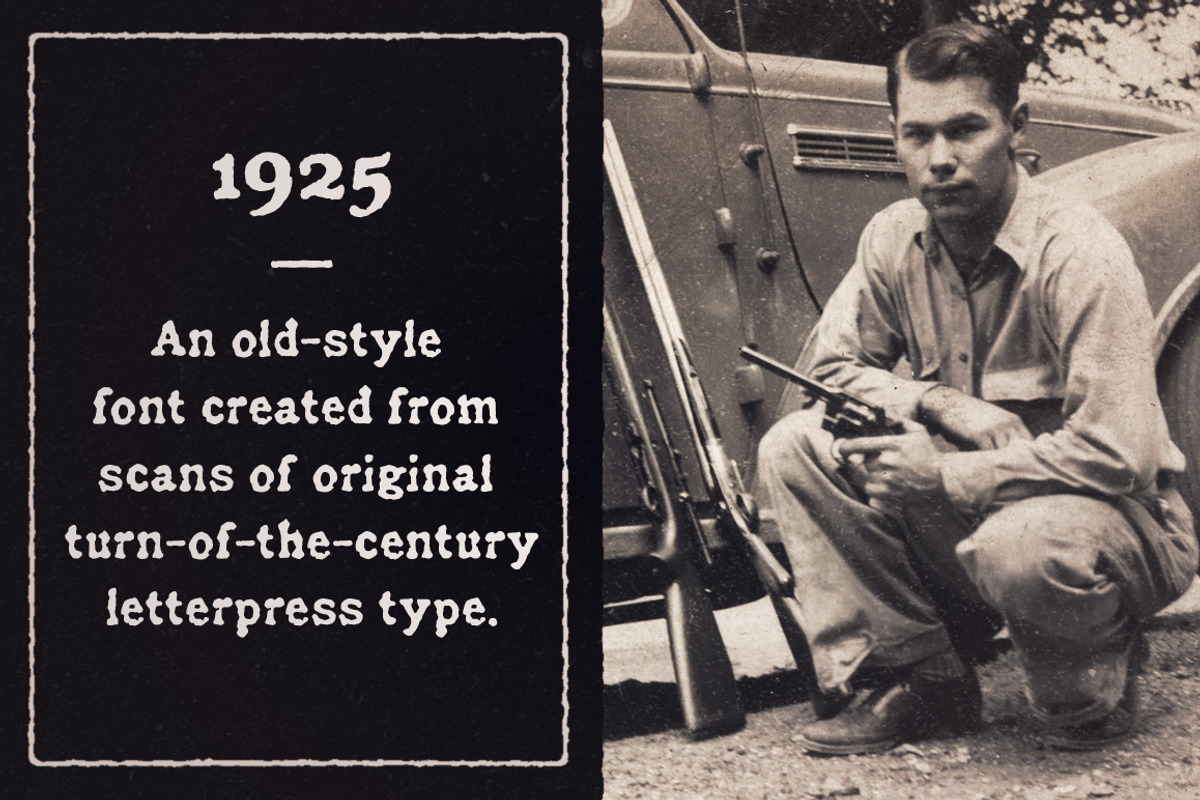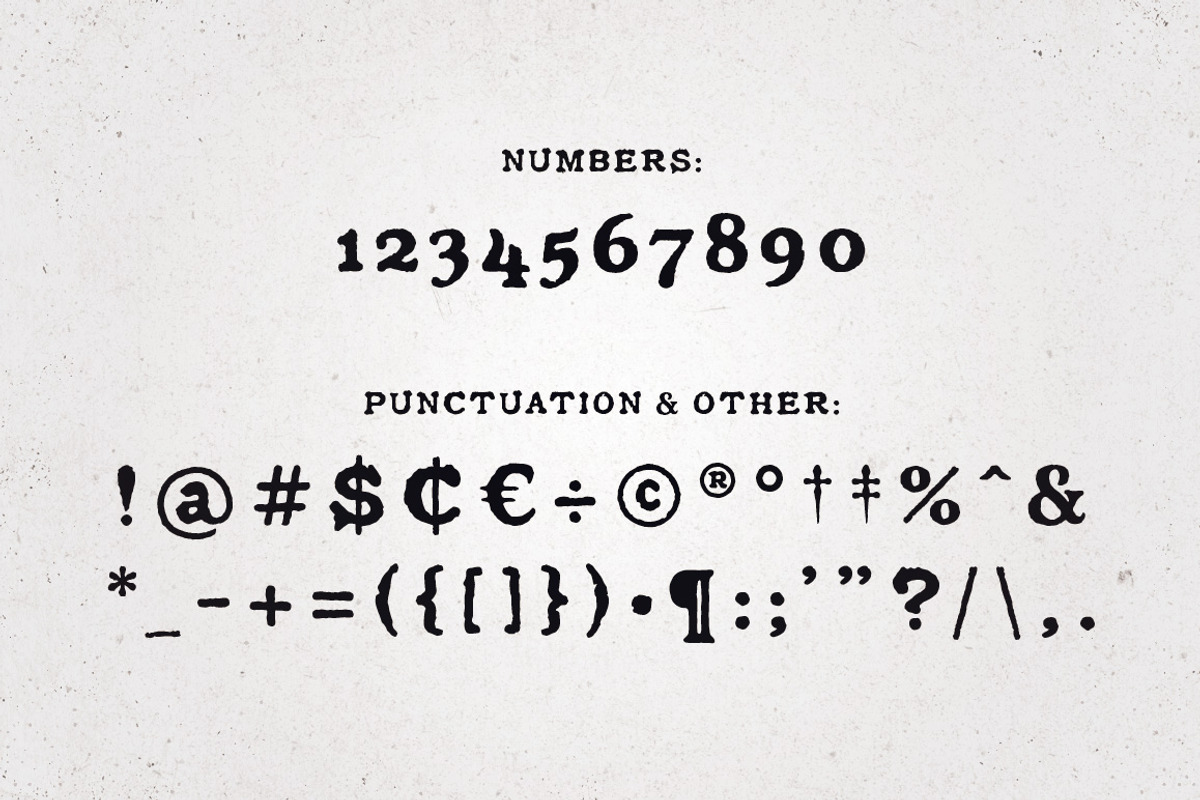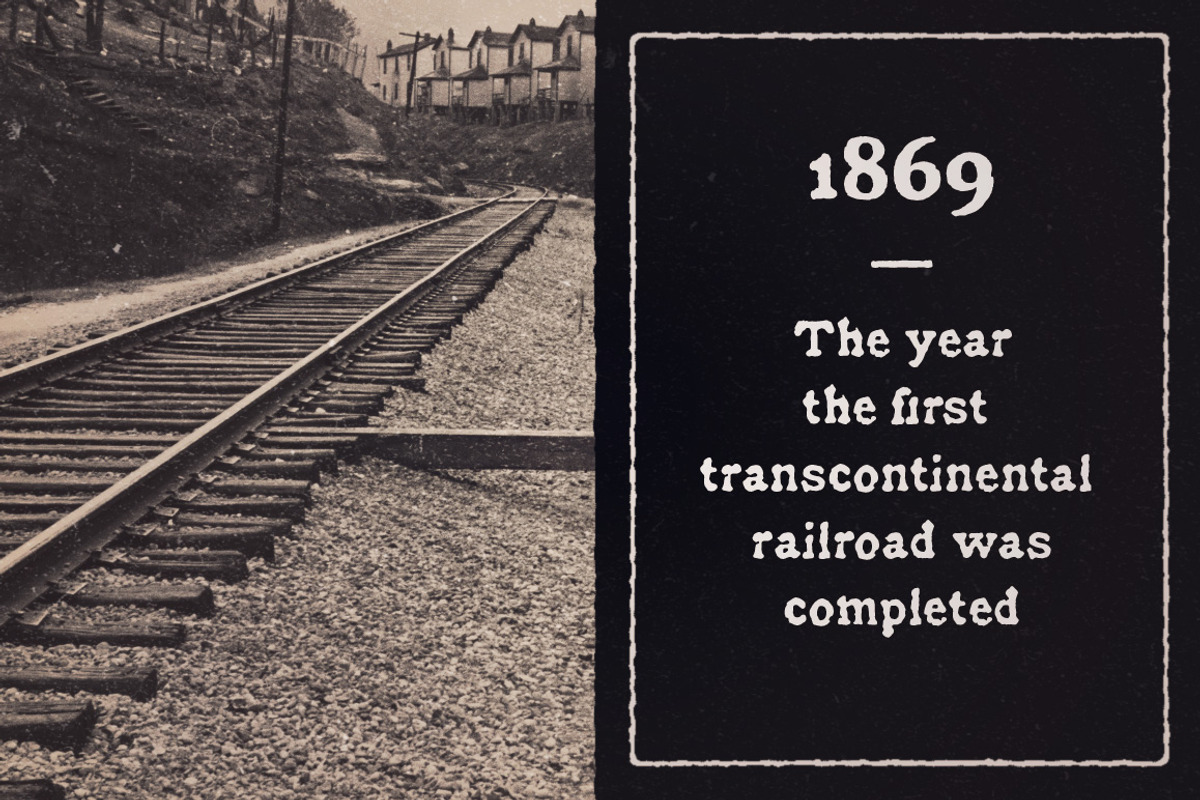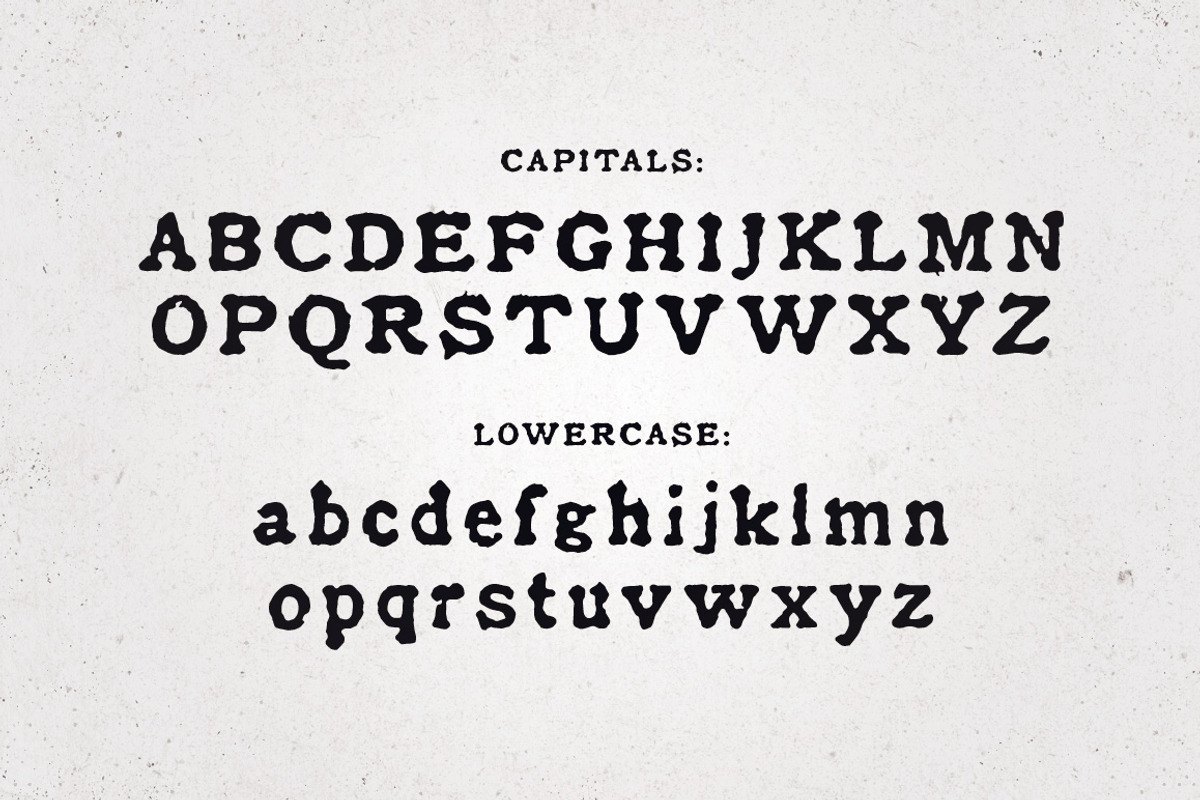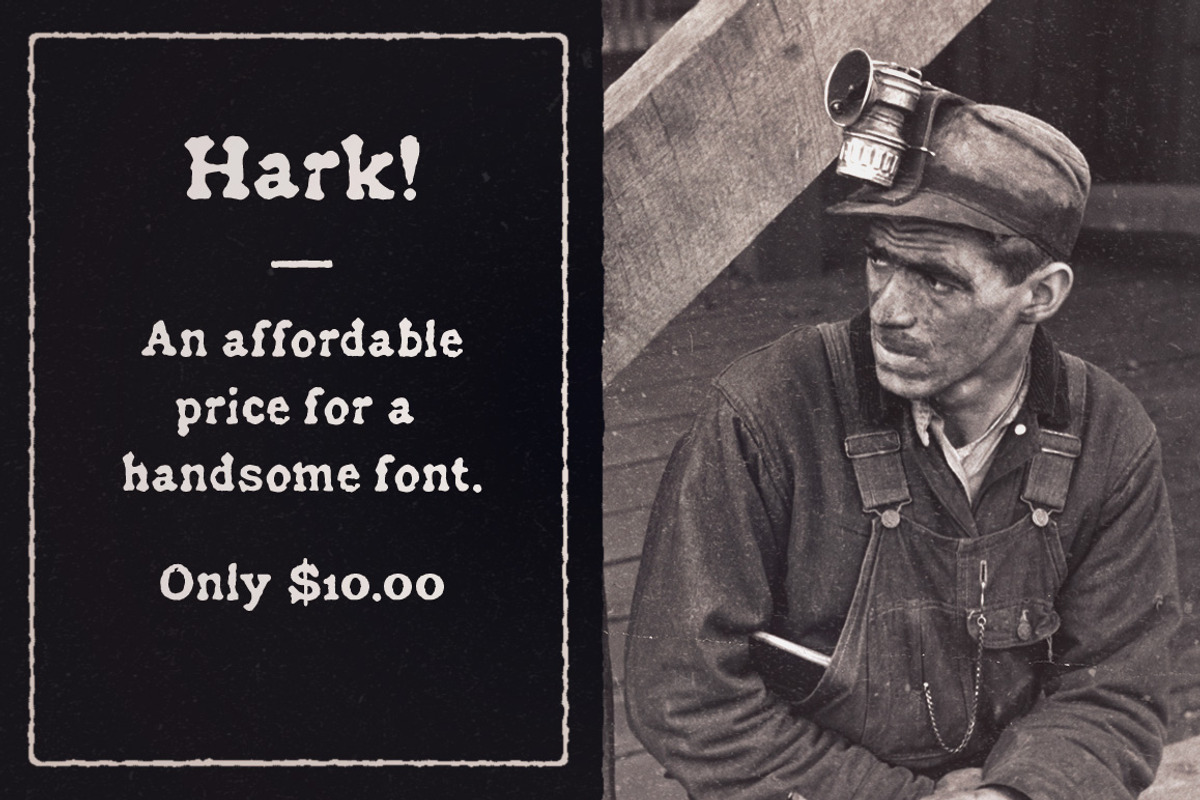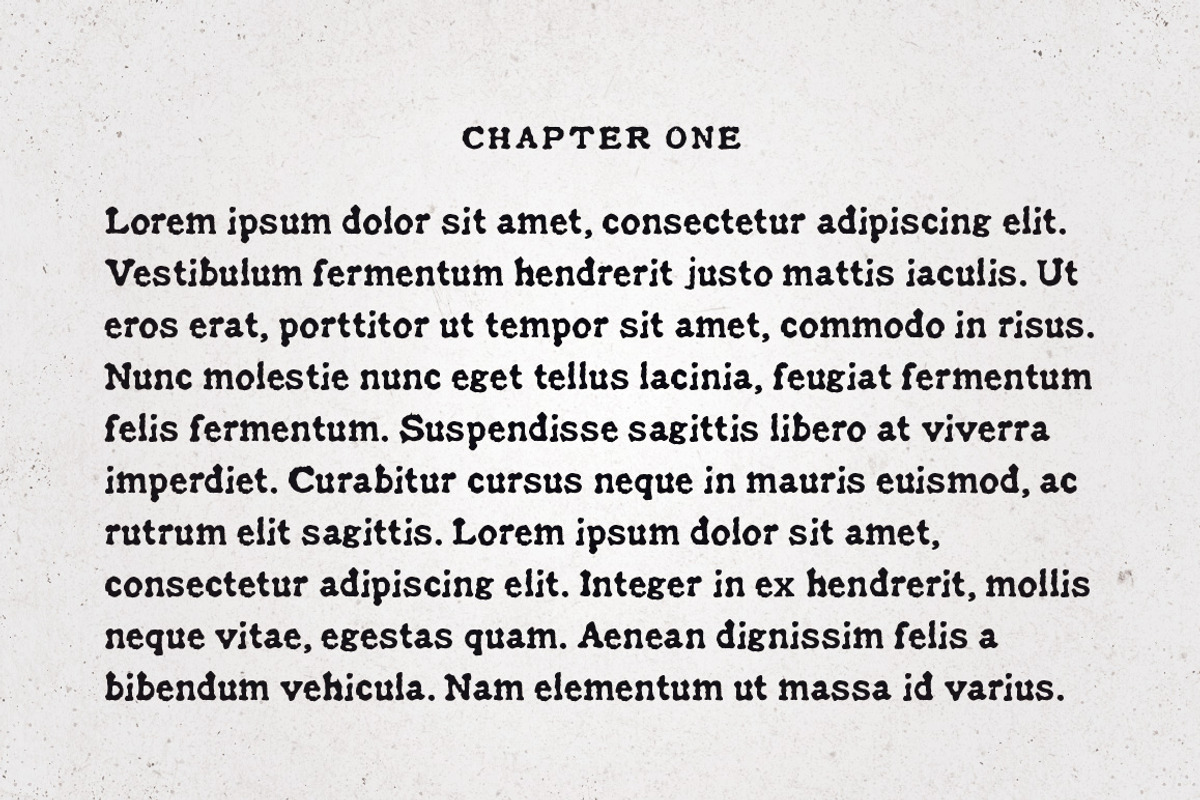
Historical Press font
Historical Press font by Good Craft Supply Co. is a font selected for branding, posters, packaging, typography.
- The characters were designed to simulate over-inking, which adds to the overall authenticity of the font.
Why Historical Press font is worth a look
Historical Press font by Good Craft Supply Co. fits naturally into Branding, posters, packaging, typography.